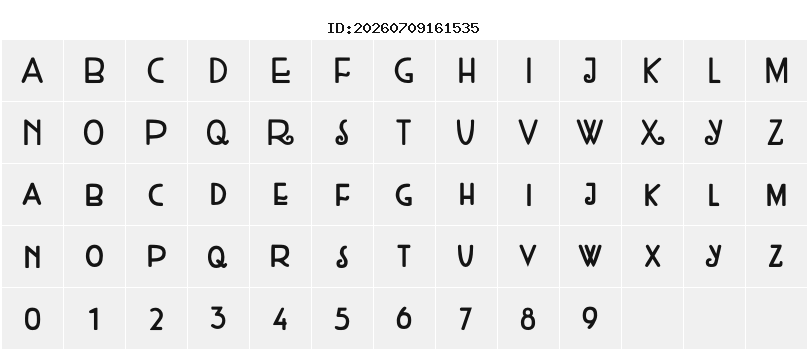
DK Weltschmerz Preview
• Font Name: DK Weltschmerz
• Designer: David Kerkhoff
About DK Weltschmerz.otf
DK Weltschmerz.otf is a modern, elegant sans-serif font designed for ultimate readability and visual harmony. Perfect for branding, headlines, web design, and print materials.